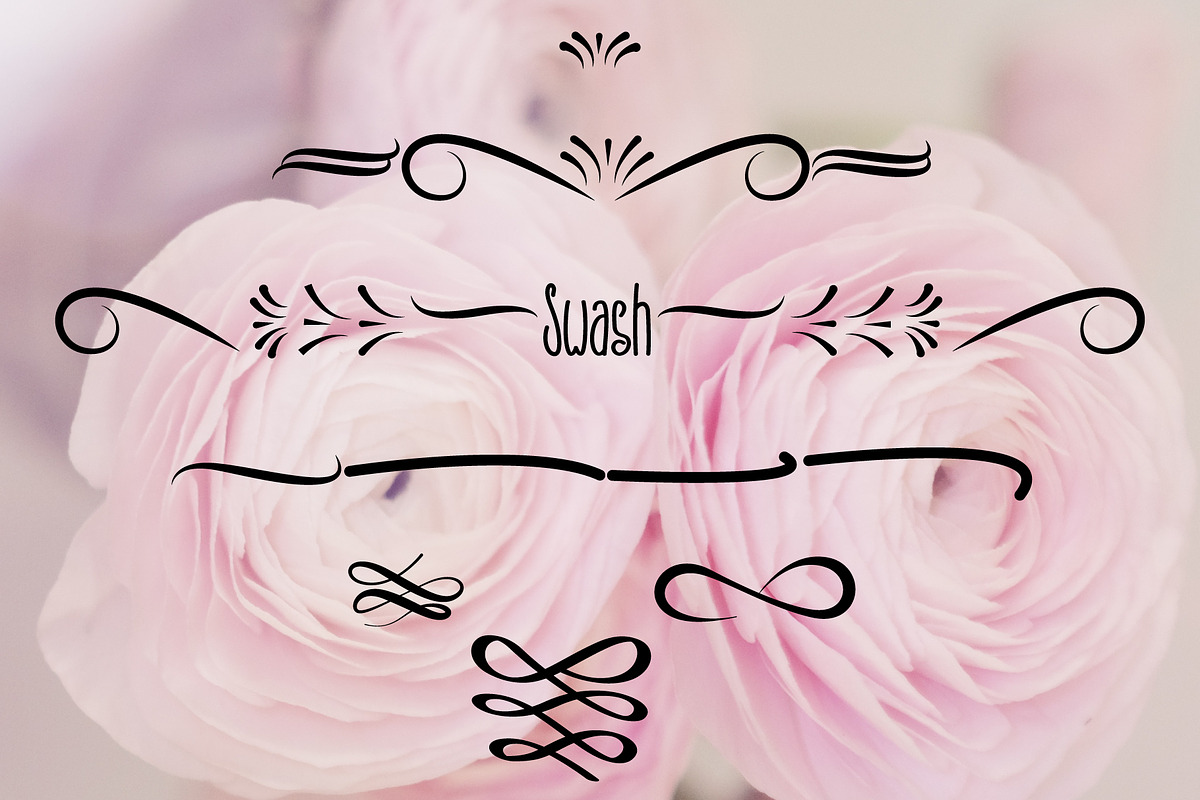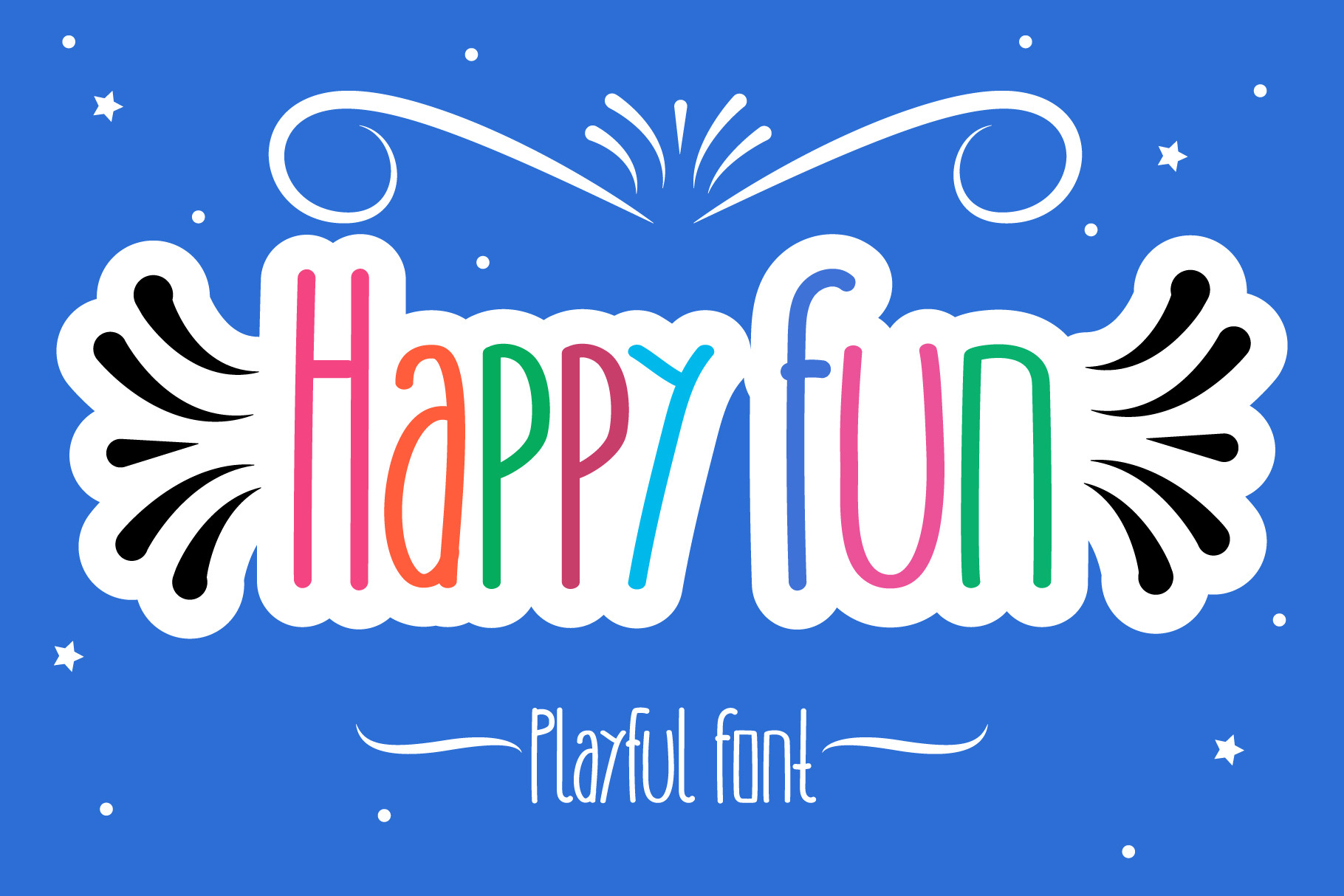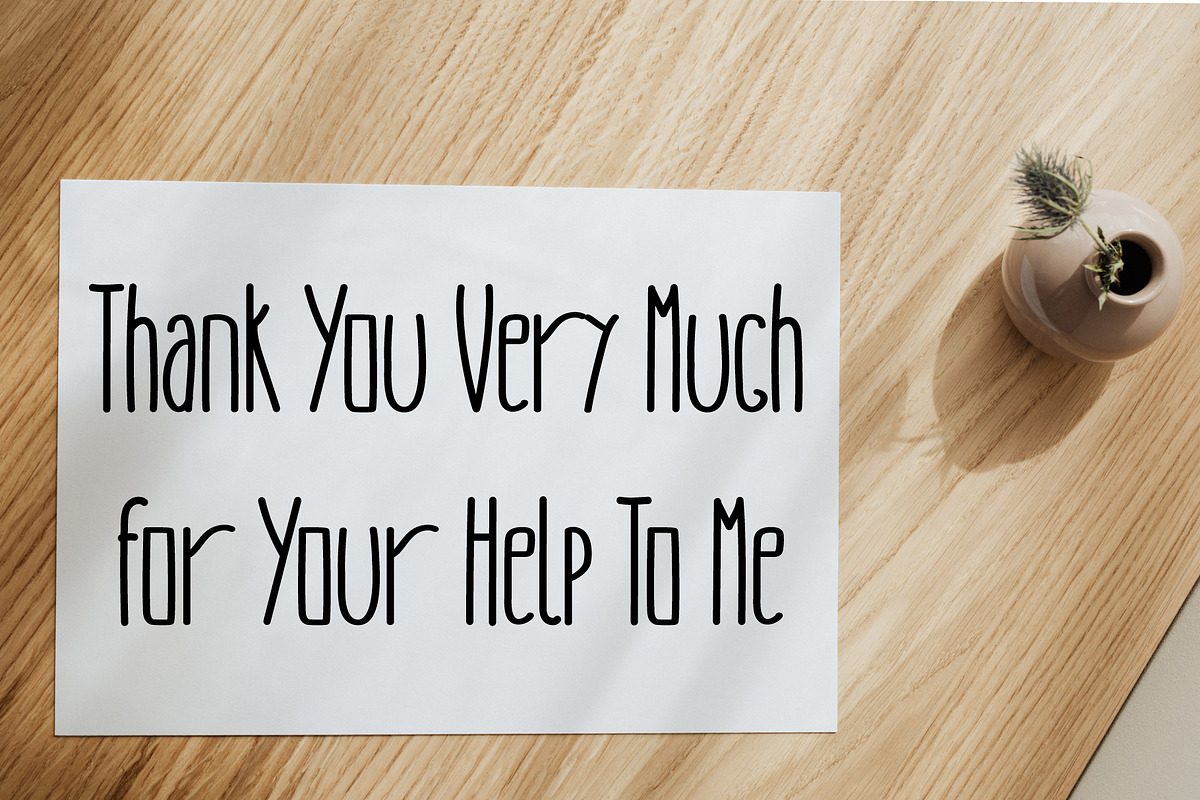
Happy Fun – High Monoline Font
Say hello to Happy Fun, a tall, monoline display font that radiates pure joy! With its single-line strokes and generous x-height, Happy Fun blends the charm of Saturday-morning cartoons with the clarity modern brands demand.
Whether you’re designing comic panels, YouTube thumbnails, Instagram quote cards, or eye-catching product packaging, Happy Fun delivers a burst of character in every glyph. Its smooth curves keep things friendly, while the extended letterforms make headlines pop on screens big and small—from TikTok intros to television lower-thirds.
Perfect for
Cartoon & comic titles
Kids’ books and educational media
Social media graphics (YouTube, Instagram, Facebook, Twitter)
Entertainment branding & TV show logos
Company or startup wordmarks
Game, app & product names
Event posters, flyers, merch and more
Why You’ll Love It
One-stroke clarity – buttery-smooth monoline weight keeps every character crisp at any size.
Versatile personality – playful enough for cartoons, professional enough for brand marks.
Instant impact – extra-tall capitals make headlines stand out in busy social feeds.